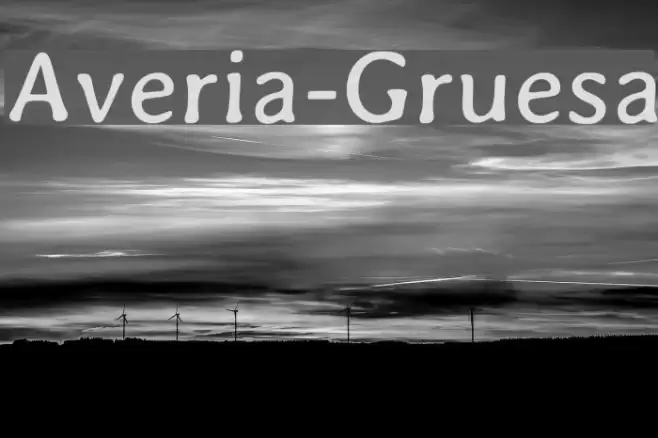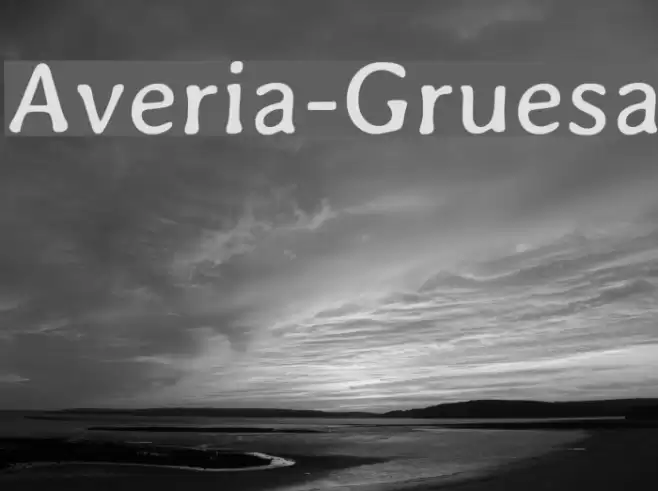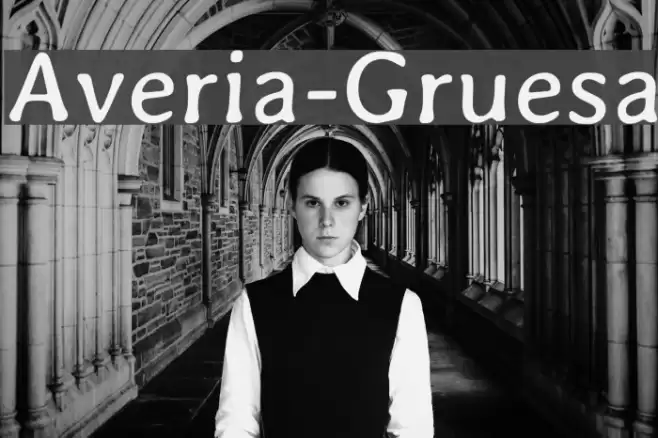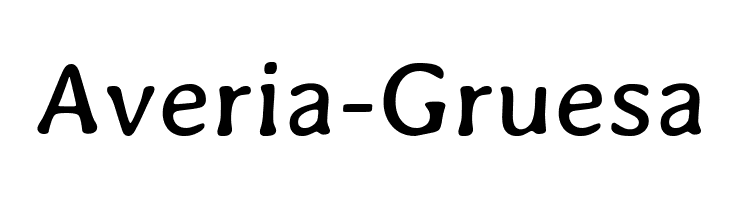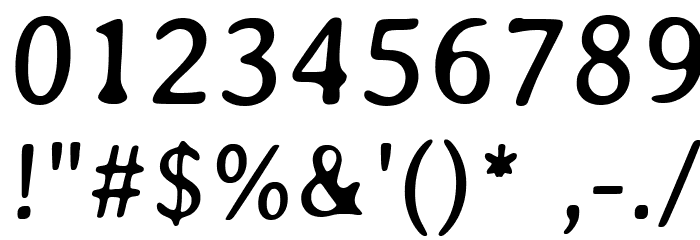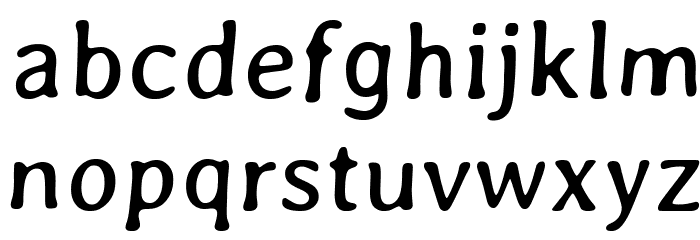
Averia-Gruesa
This font features a playful and slightly whimsical design, characterized by its rounded and smooth letterforms. The strokes are consistent in thickness, giving it a uniform appearance. The characters have a friendly and approachable feel, with subtle curves and a slightly hand-drawn aesthetic. The font maintains readability while adding a touch of personality, making it suitable for various creative applications. Its unique style is evident in the way the letters are slightly irregular, yet harmoniously balanced, providing a casual yet polished look.
A playful, rounded font with a smooth, hand-drawn aesthetic.
- Proposed Projects: Ideal for children's books, casual branding, greeting cards, and playful design projects.
- Overall Style: Casual, Playful
- Use Case: Headlines, Logos, Informal Text